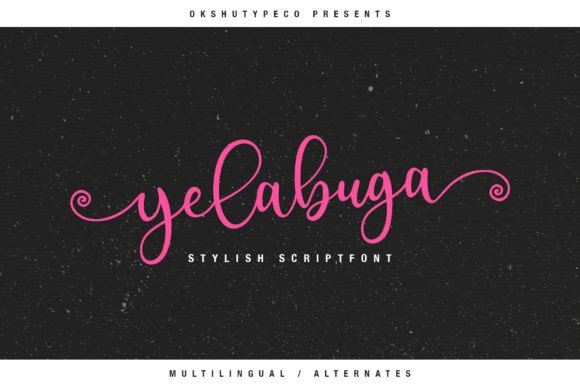
Introducing Yelabuga Font, the perfect choice for adding a touch of elegance and charm to your projects. Created by OKSHUTYPECO, this exquisite handwritten font is designed to be your true favorite. With its classy calligraphic influences combined with a contemporary and fresh feel, Yelabuga Font is guaranteed to elevate your designs to new heights.
Capture the essence of the holiday season with Yelabuga Font. As a Font For Christmas Stocking, it embodies the festive spirit and adds a delightful touch to any project. Whether you're creating holiday-themed cards, invitations, or decorations, this font will infuse your designs with warmth and joy, making them truly memorable.
Yelabuga Font is more than just a font; it's a creative companion that sparks inspiration. With its unique and eye-catching letterforms, it brings your words to life, making them stand out in a crowd. Say goodbye to ordinary and hello to extraordinary with this captivating font.
But Yelabuga Font doesn't stop at aesthetics; it also offers exceptional functionality. Its versatility allows it to be used across various design applications, including logos, branding, packaging, and more. From elegant wedding invitations to stylish social media graphics, this font adapts effortlessly to any project, giving you the freedom to explore your creativity.
Experience the magic of Yelabuga Font and watch as your designs come alive. Its handwritten charm evokes a sense of authenticity and personality, creating a genuine connection with your audience. With every stroke, this font tells a story, making your message impactful and unforgettable.